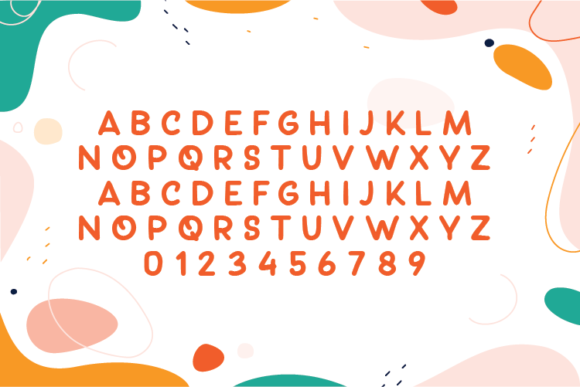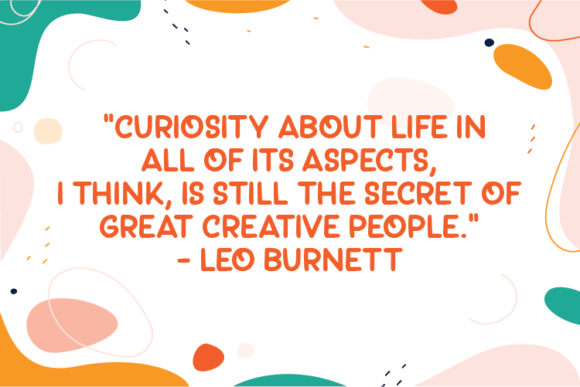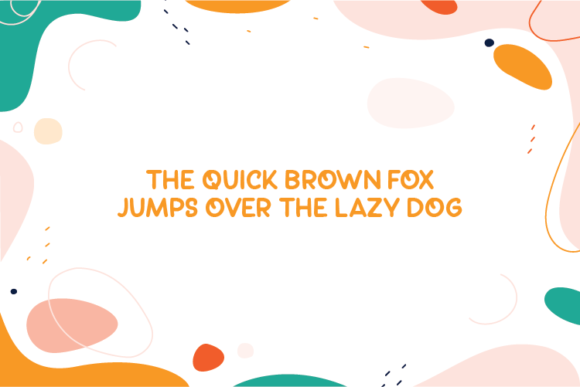
Crafters Font: The Ultimate Choice for Designers and Crafters
In the world of typography, fonts play a crucial role in conveying the tone and personality of a brand or design. For designers and crafters, finding the perfect font can be a daunting task. However, if you’re looking for a unique and natural handwritten font, look no further than Crafters Font. In this article, we’ll dive into the features and benefits of Crafters Font, and explore why it’s perfect for quotes, notes, tees, and any product design.
What is Crafters Font?
Crafters Font is a beautiful, natural handwritten font that has been carefully crafted to provide a unique and authentic look. What sets it apart from other fonts is its distinctive feature of not changing a single node in each character’s indentation. This means that every character has a consistent and organic feel, making it look like it was written by hand.
Key Features of Crafters Font
• Natural Handwritten Look: Crafters Font has a genuine handwritten look that adds a personal touch to any design.
• Unique Indentation: The font’s consistent indentation makes it stand out from other fonts and gives it a distinctive character.
• Versatile: Crafters Font is perfect for a wide range of design projects, including quotes, notes, tees, and product design.
• Easy to Read: The font is clear and easy to read, making it ideal for body text and headings.
Benefits of Using Crafters Font
So, why should designers and crafters choose Crafters Font for their projects? Here are just a few benefits:
• Adds a Personal Touch: Crafters Font adds a personal and human touch to designs, making them more relatable and engaging.
• Enhances Brand Identity: The font’s unique character can help to create a distinctive brand identity that sets you apart from others.
• Increases Readability: Crafters Font is easy to read, making it perfect for designs that require a clear and concise message.
• Versatile and Adaptable: The font can be used in a wide range of design projects, from digital designs to print materials.
Use Cases for Crafters Font
Crafters Font is a versatile font that can be used in a variety of design projects. Here are some use cases:
• Quotes and Inspirational Messages: The font’s natural handwritten look makes it perfect for quotes and inspirational messages.
• Notes and Journals: Crafters Font is ideal for notes and journals, adding a personal touch to written content.
• T-Shirts and Merchandise: The font’s unique character makes it perfect for t-shirts and merchandise, adding a distinctive touch to designs.
• Product Design: Crafters Font can be used in product design, adding a personal and human touch to packaging and branding.
In conclusion, Crafters Font is a unique and natural handwritten font that offers a range of benefits for designers and crafters. Its distinctive feature of consistent indentation makes it stand out from other fonts, while its versatility and adaptability make it perfect for a wide range of design projects. Whether you’re looking to add a personal touch to your designs or create a distinctive brand identity, Crafters Font is the ultimate choice.